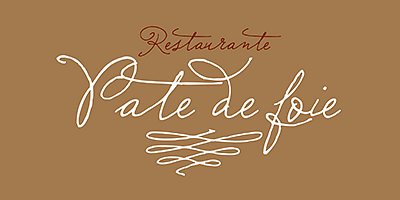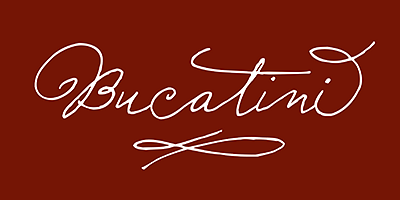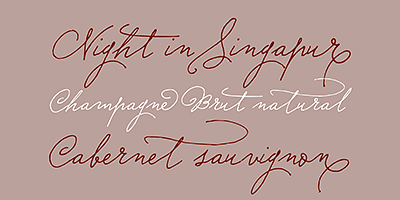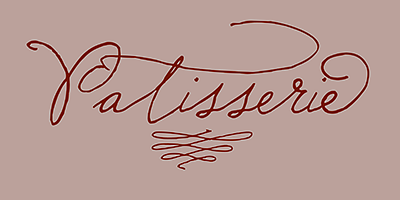
Sudestada is a typeface with distinctive handwritten style and personality. An alternate weight provides a large number of lowercase character variations and swashes for more realistic-looking handwritten text.